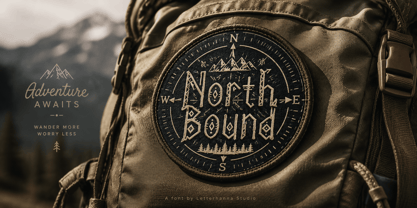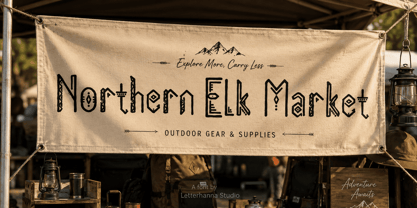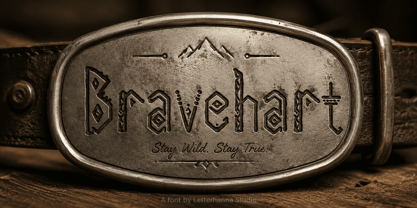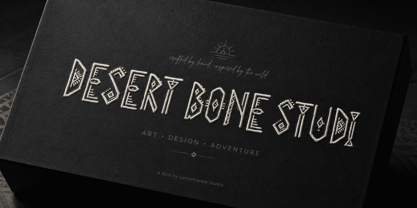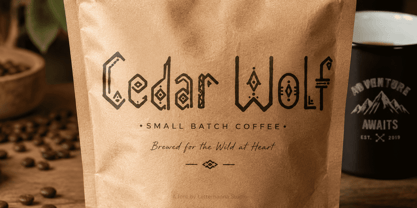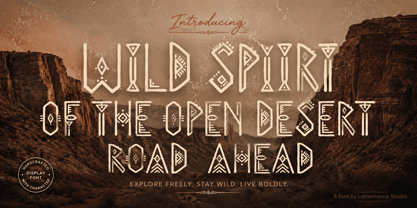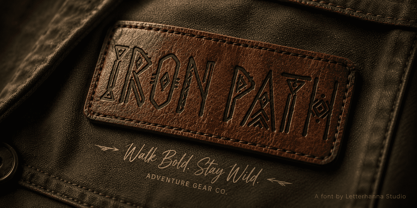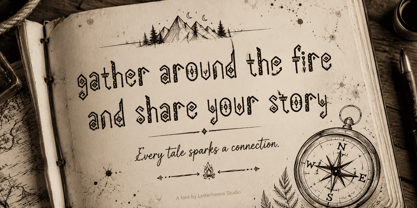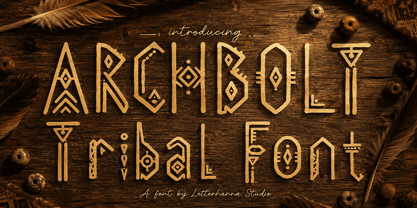
Archbolt
by Letterhanna Studio
The Archbolt Font Family was designed by Rinaldo Hasibuan and published by Letterhanna Studio. Archbolt contains 1 styles. More about this family
There's a moment every designer knows — staring at a blank canvas, searching for the one typeface that doesn't just look good, but feels like something. That's exactly the gap Archbolt was carved to fill. If you've been hunting for a tribal font that carries genuine weight and character rather than a generic decorative shortcut, Archbolt might be the missing piece your next project has been waiting for.
The story behind Archbolt starts with a simple obsession: what would lettering look like if it had been chiseled into stone by hands that had spent generations perfecting the craft? Every glyph in this typeface answers that question. The uppercase set stands tall, angular, and monumental — each stroke built from sharp, deliberate lines that echo totem carvings and ancient native symbolism. Small decorative touches, like diamond accents, dashes, and arrow-like flourishes, are tucked inside the letterforms, giving the whole alphabet a genuinely hand-carved texture instead of a flat digital finish.
This is where Archbolt separates itself from the sea of ordinary tribal text fonts flooding the market. Many "tribal" typefaces lean on a single gimmick — a jagged edge here, a triangle there — and call it a day. Archbolt goes further. The lowercase characters flow with a slightly looser, more organic rhythm than the uppercase, almost like they were sketched around a campfire rather than measured with a ruler. That contrast between structured boldness and free-flowing texture is what gives Archbolt its distinctive personality: primal, but never chaotic.
Style-wise, Archbolt sits comfortably at the intersection of native aesthetics and rustic design. Think Southwestern pottery, woven blankets, leather tooling, and weathered wood signage. The font naturally pairs with earthy color palettes — burnt orange, deep clay red, faded denim, aged parchment — and works beautifully alongside distressed textures or hand-drawn illustrations. It's the kind of typeface that instantly signals authenticity, heritage, and a story worth telling.
Who is Archbolt actually for? Picture a small-batch coffee roaster naming their new blend after a mountain trail. A leather goods maker crafting belts and bags meant to outlive trends. A festival poster for an outdoor gathering that wants to feel wild and unfiltered. A tattoo studio building a logo that needs to look etched rather than printed. A camping gear brand that wants customers to feel the adventure before they even open the box. In every one of these cases, a soft, minimal sans-serif would fall flat — but Archbolt carries the exact weight and rawness the brand needs.
Functionally, Archbolt is built to work as hard as it looks. With a full uppercase and lowercase set plus supporting punctuation, you're not limited to short headline words — you can build complete taglines, product names, and layered compositions. It reads clearly at large display sizes, which is exactly where a rustic font like this should live: hero sections, packaging labels, logo lockups, and bold poster type.
At its core, Archbolt isn't just a typeface — it's a small piece of storytelling. Every angular stroke and hand-etched detail was shaped to feel like it belongs to something older than itself, something carried down rather than generated. That's a hard quality to fake, and it's exactly what makes Archbolt worth adding to your collection.